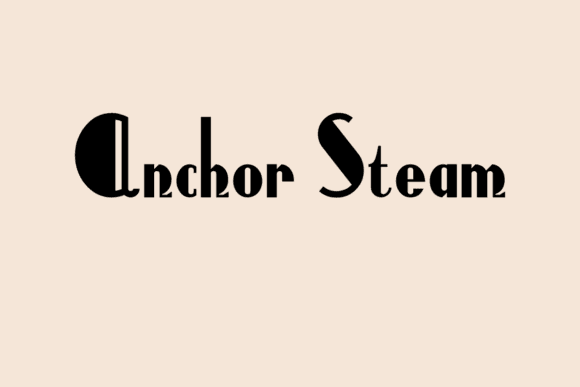
Anchor Steam Font for Crafting, Logos and Print Projects
Anchor Steam is a bold serif font with a classic nautical aesthetic, making it ideal for vintage branding, handcrafted labels, and print projects with a strong, grounded personality. Its timeless character and stylized edges deliver visual strength and retro charm.
This font entity captures the look of heritage signage and old-world printing, great for adding authenticity to craft labels, custom packaging, and branding kits.
Anchor Steam supports print and digital formats, and is especially effective in compositions that require clear hierarchy and masculine visual tone.
- Vintage aesthetic with maritime influence
- Strong legibility in print and web
- Perfect for bold logo and brand marks
- Blends rustic charm with professional structure
Q: What kind of font is Anchor Steam?
A: Anchor Steam is a serif display font with a vintage, nautical style suited for logos, labels, and print branding projects. Its distinctive letterforms evoke a sense of timelessness, making it an ideal choice for brands looking to convey authenticity and heritage. Additionally, the versatility of Anchor Steam allows it to be paired with various other typefaces, enhancing visual interest in any design composition. Whether used for packaging or promotional materials, this font proves to be an angel font for creative projects that require a touch of nostalgia.